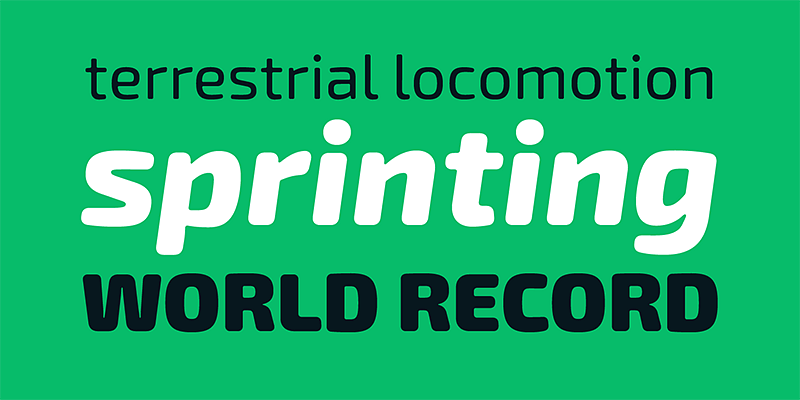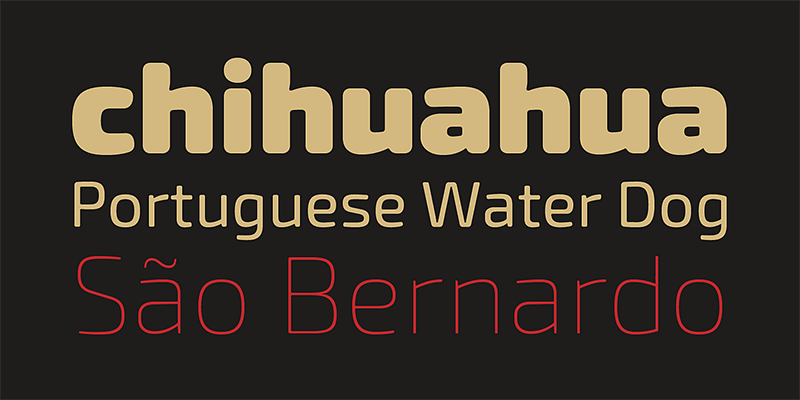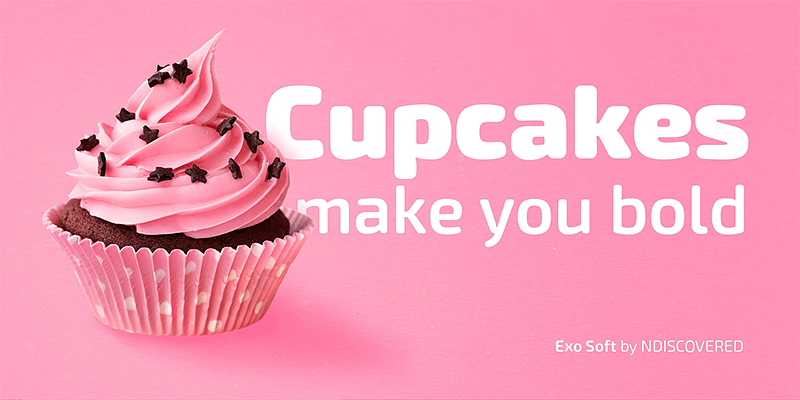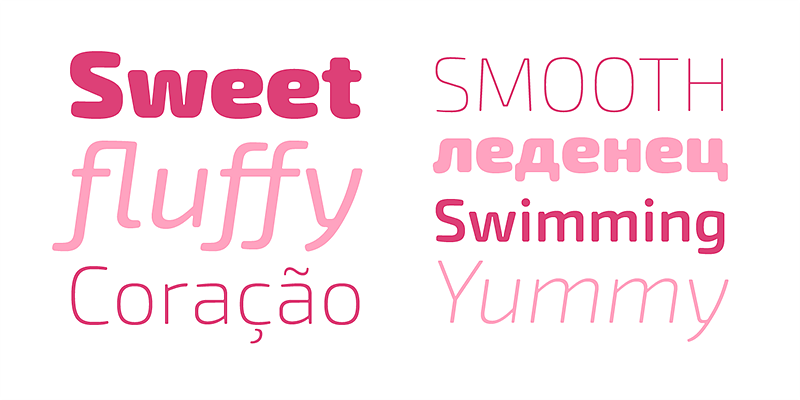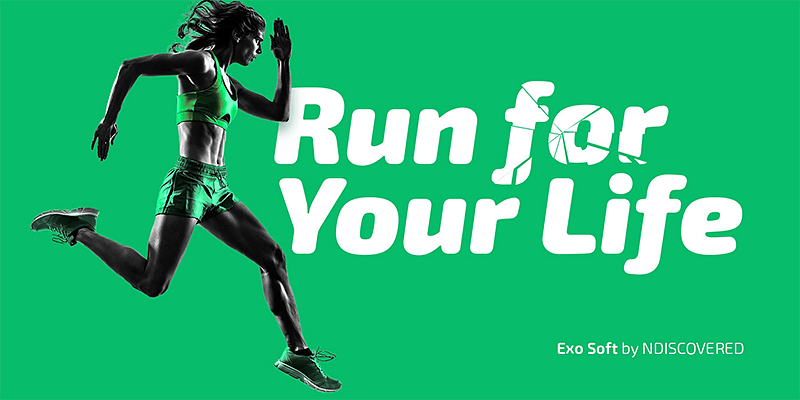
Technology meets humanity. The geometric design got organic with carefully crafted smoothed edges. Exo Soft is a contemporary sans-serif font with a warm and humane feeling.